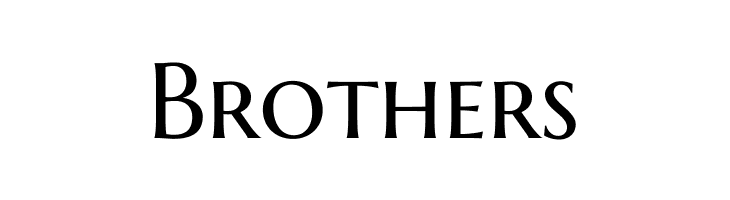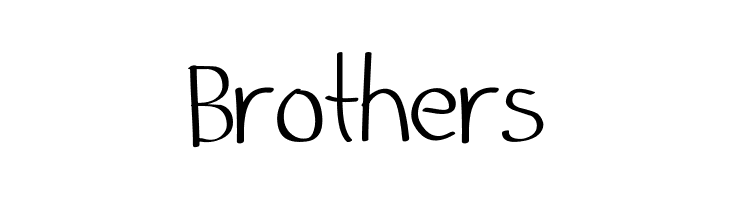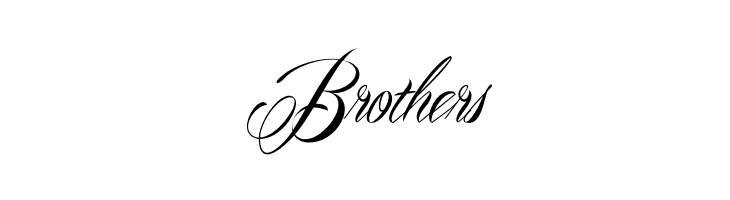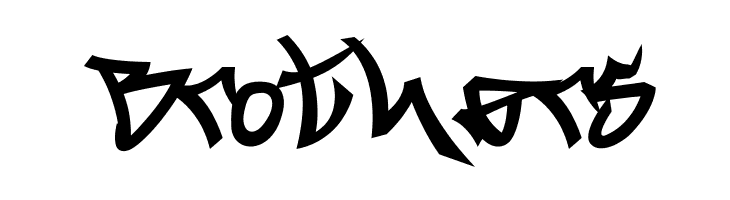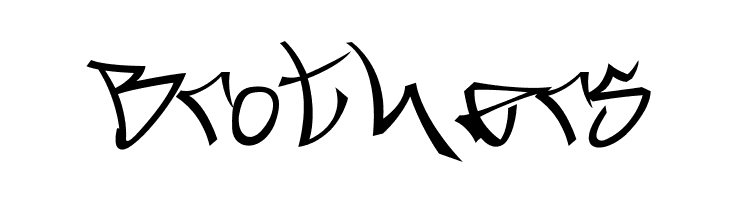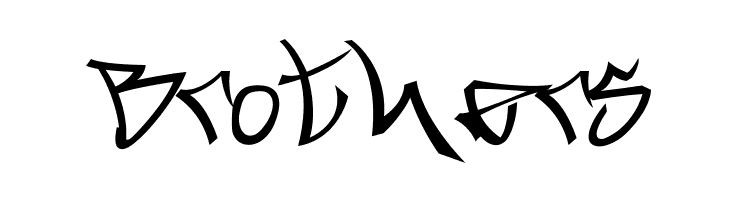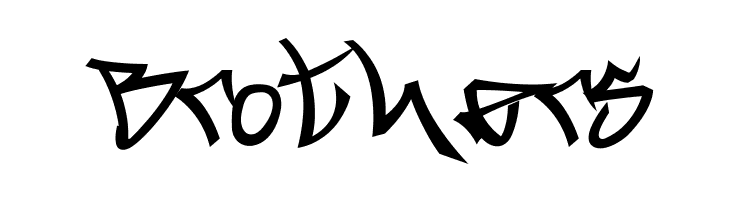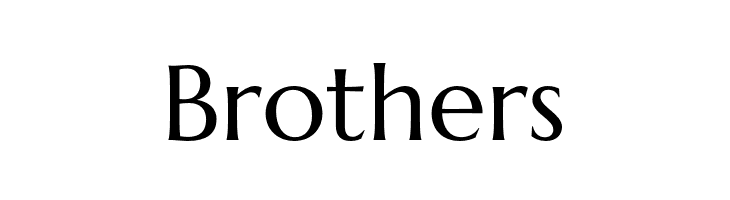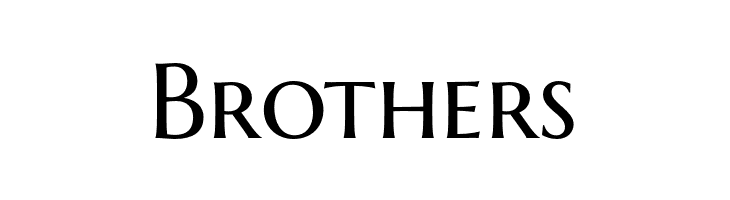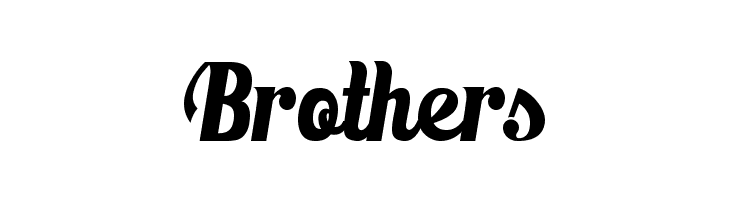
An ornate, Victorian-style font with intricate swashes and decorative elements.
A geometric, Greek-inspired font with bold, angular lines and intricate patterns.
A playful, modern font with rounded, slightly condensed characters and unique curves.
A bold, artistic font with sharp angles and a modern flair.
A bold, jagged font with a horror-inspired, distressed style.
A classic serif font with high contrast and elegant serifs, perfect for sophisticated designs.
A bold, geometric font with a futuristic, digital aesthetic.
A pixelated, grid-based font with a bold, digital appearance.
A grid-based, geometric font with a bold, digital aesthetic.
A grid-based, geometric font with a bold, futuristic style.
A bold, geometric font with a pixelated, digital aesthetic.
A bold, geometric font with a futuristic and mechanical style.
A whimsical, hand-drawn font with playful curls and swirls.
A bold, distressed font with a rugged, vintage appearance.
A playful, modern font with rounded edges and a bold, approachable style.
A bold, geometric font with a futuristic, angular design.
A geometric, angular font with a futuristic and bold design.
A geometric, hollow font with angular lines and a modern, futuristic style.
A futuristic, geometric font with angular edges and consistent thickness.
A bold, distressed font with a rugged, grunge aesthetic.
A bold, distressed font with a gritty, hand-drawn appearance.
An ornate Blackletter font with decorative uppercase and sharp, angular lowercase letters.
A bold and impactful font with strong, thick strokes and slight curvature for elegance.
A bold, modern font with geometric and organic elements, perfect for impactful designs.